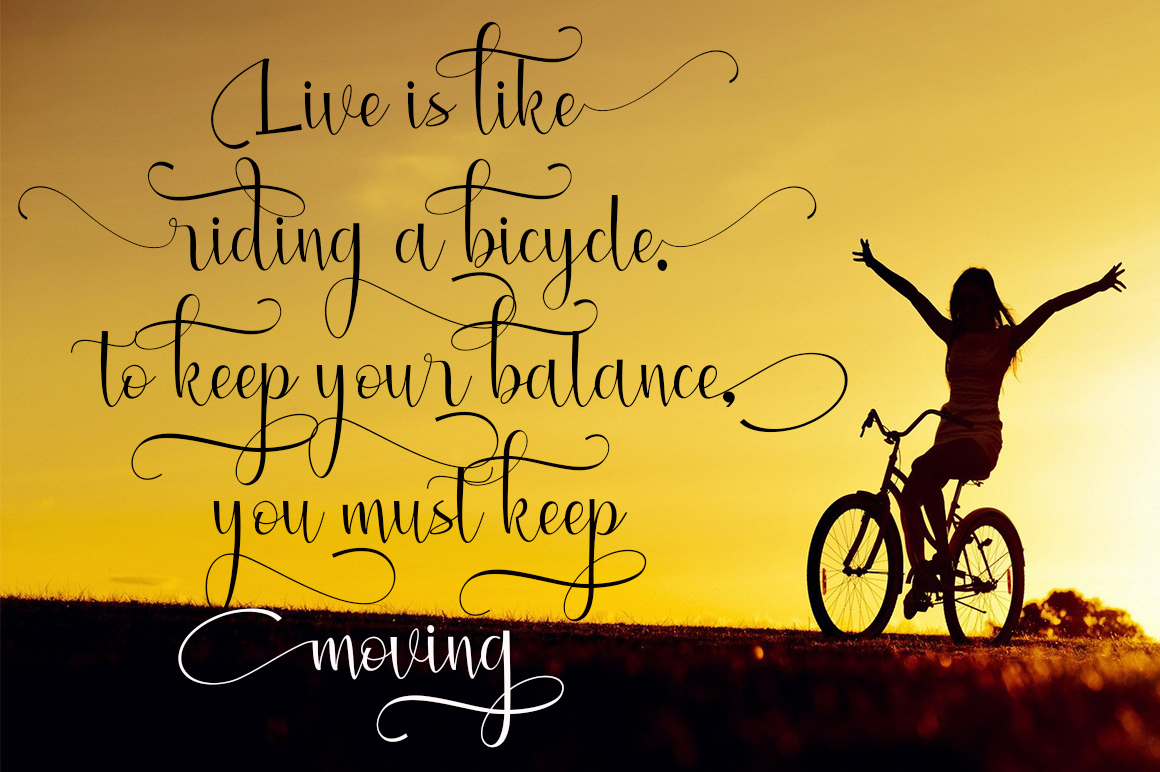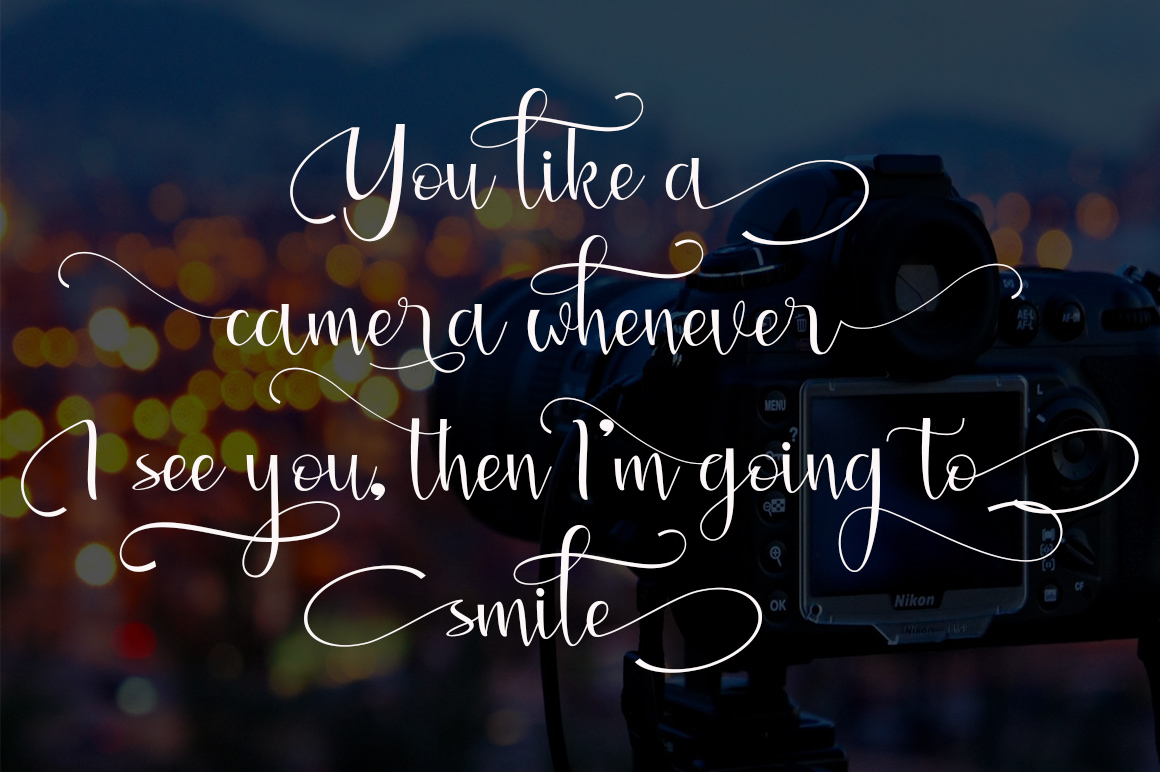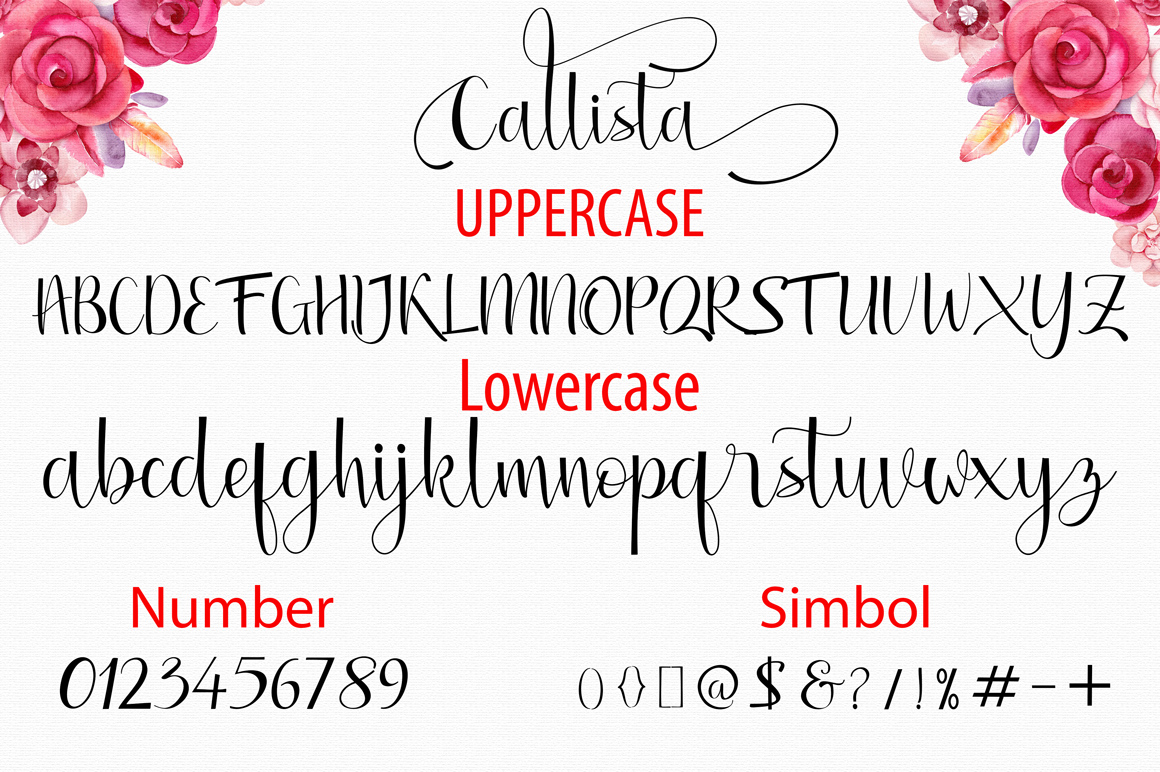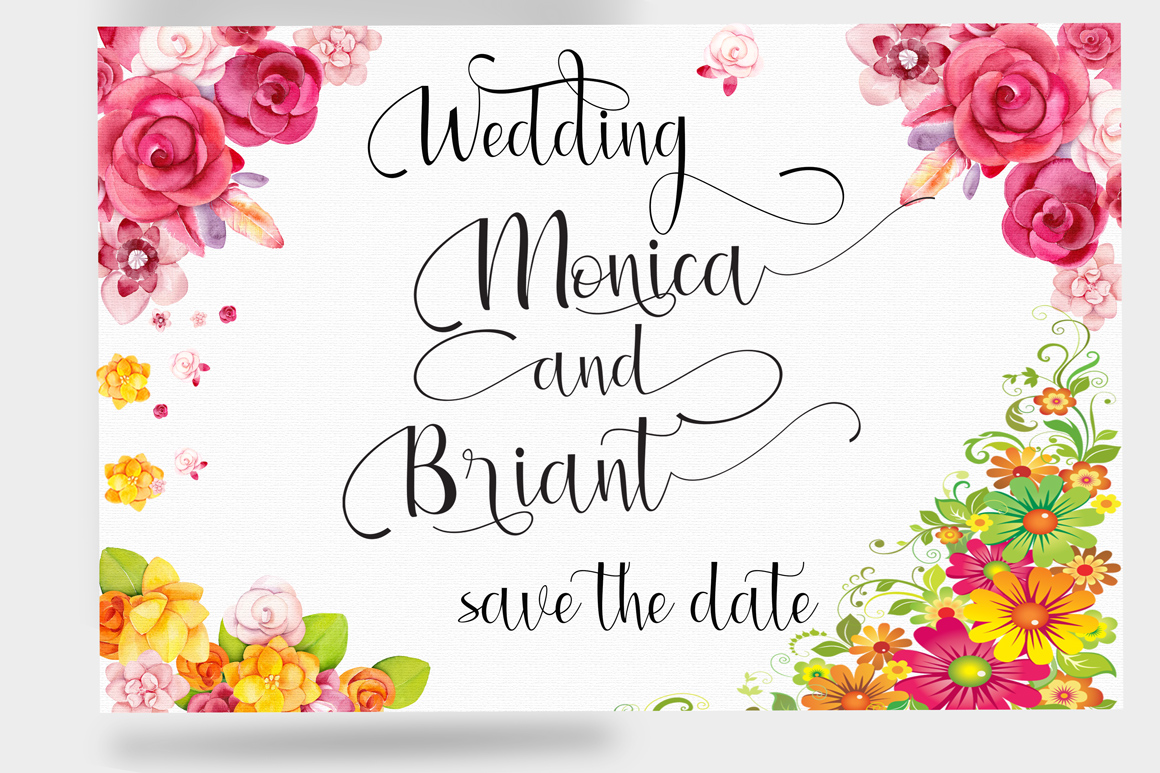
Callista Font
About Callista Font
Callista is a stunning and beautiful calligraphy font, hallmarked by its movement and flow. This romantic script is suitable to a wide array of uses, and stands out as the centerpiece to your designs.